e-exclamation mark
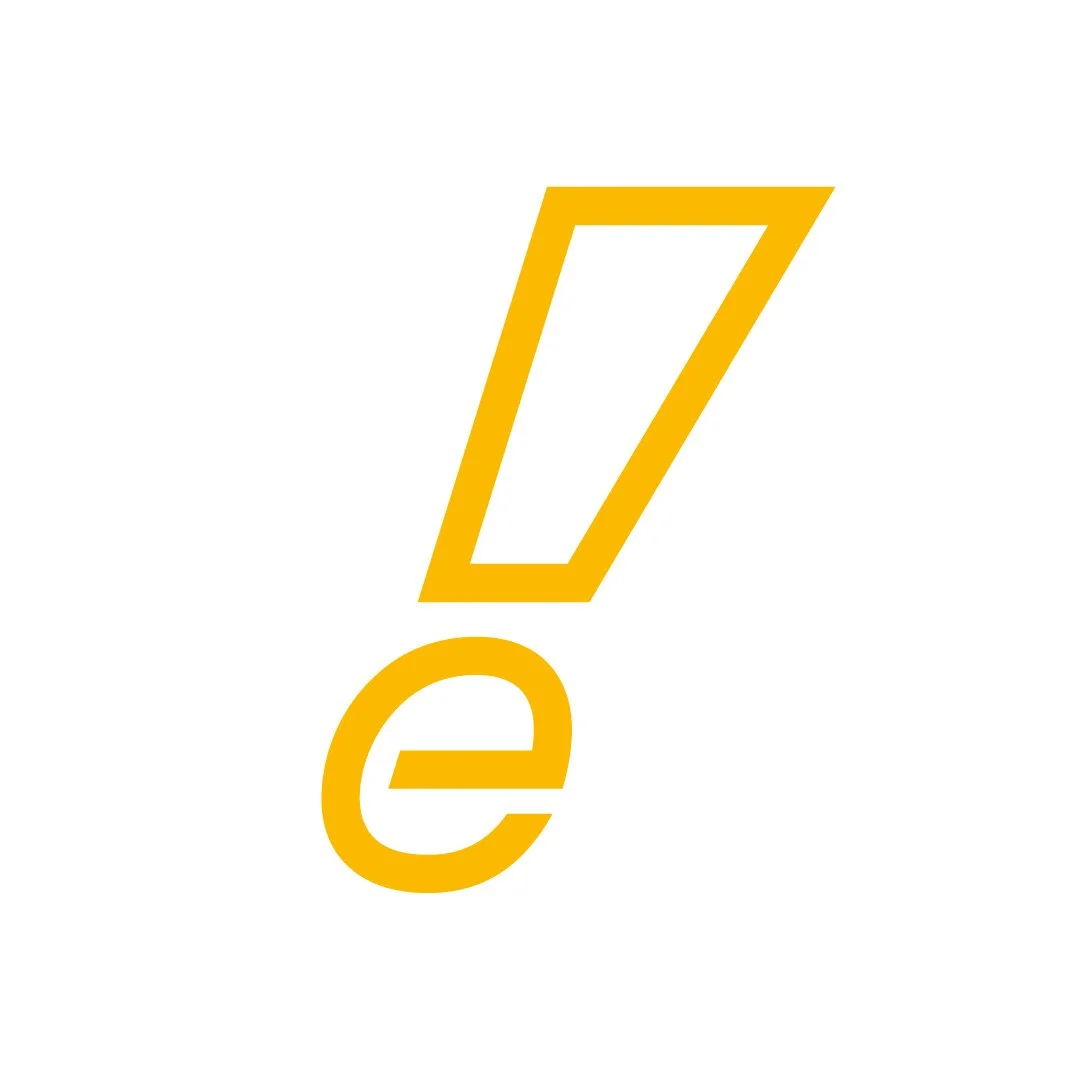
e-exclamation mark
A letter-based symbol consisting of an italic letter “e” or “é” and an exlamation mark “!”. Could fit brands and products in all fields.